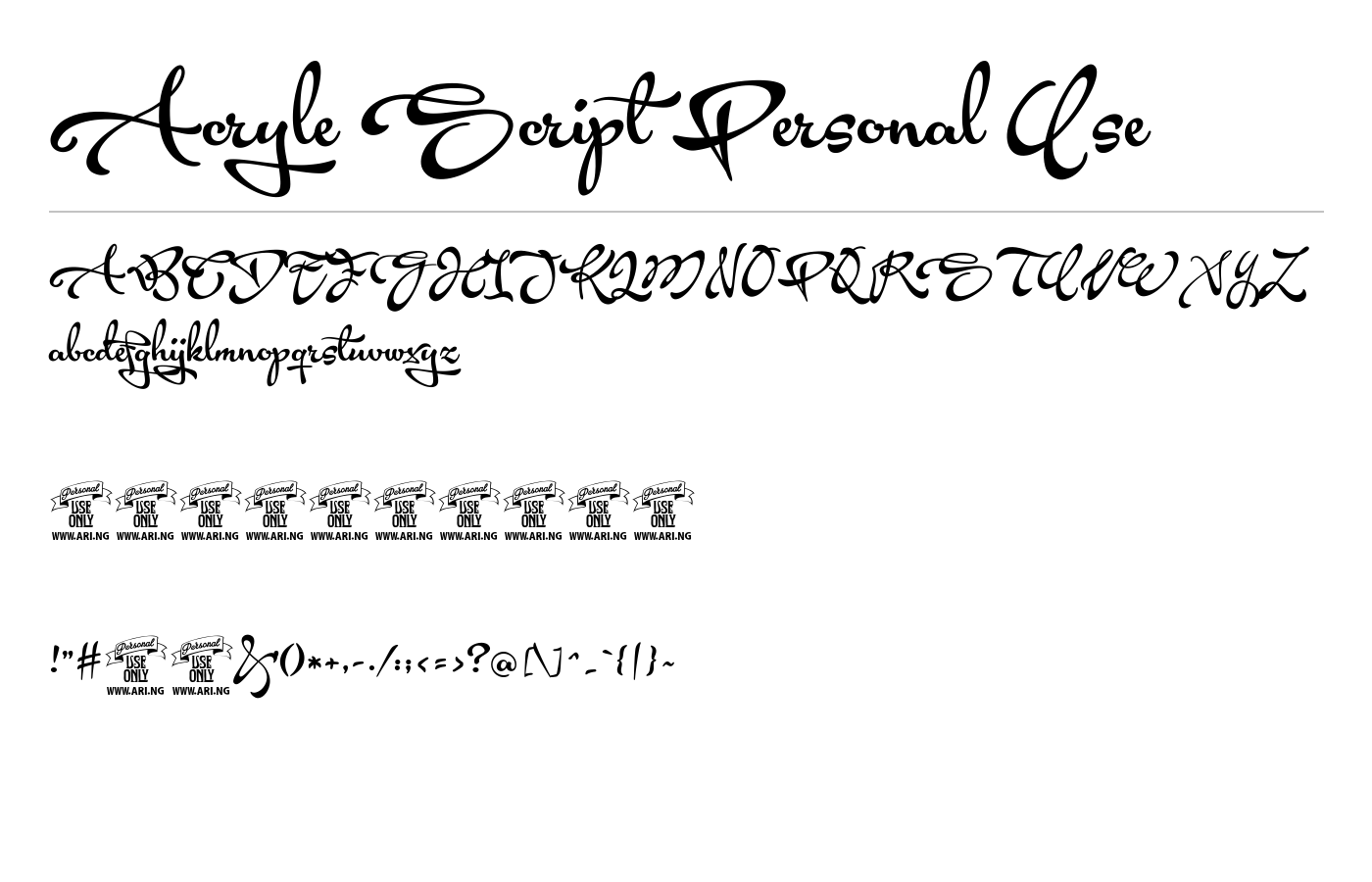
Acryle Script Personal Use Font is an elegant and decorative script typeface featuring flowing, highly stylized letterforms with varying stroke thickness and intricate swashes. Its design combines a playful yet sophisticated personality, making it ideal for creative branding, invitations, and display purposes where a luxurious handwritten touch is desired. This font works best in headlines or logos that aim to convey charm and elegance with a distinctly artistic flair.
Acryle Script Personal Use Font
About Acryle Script Personal Use Font